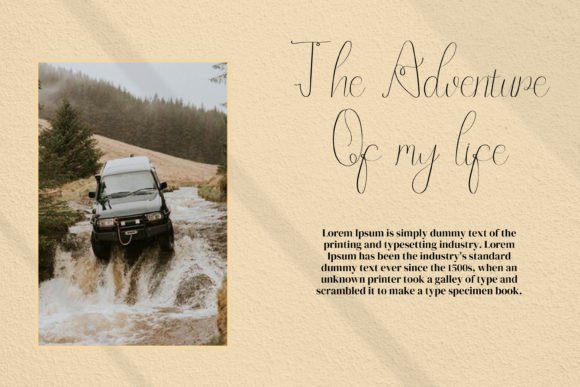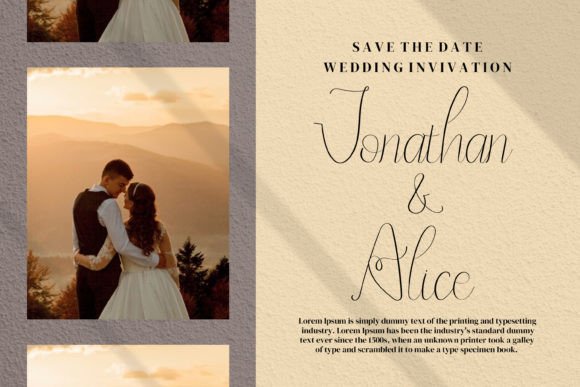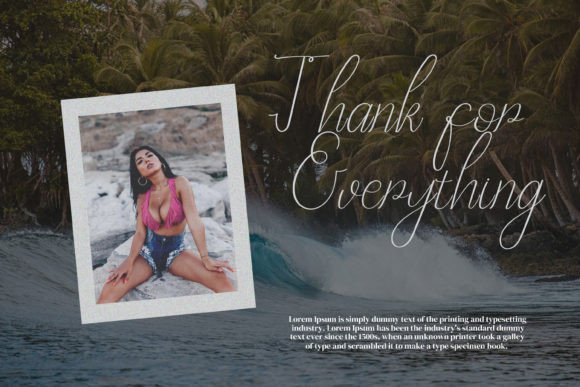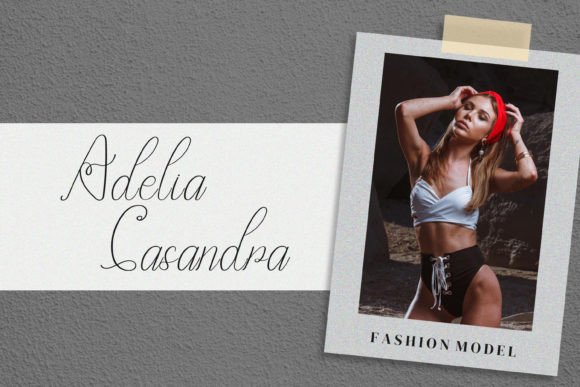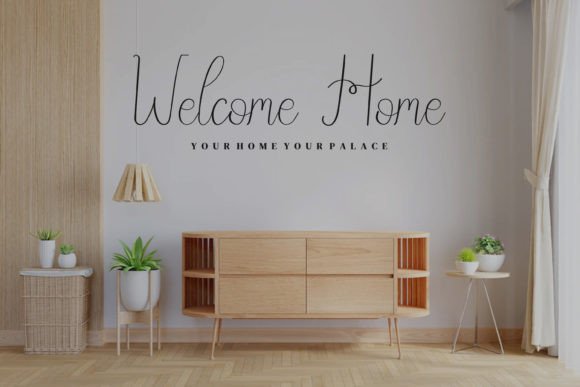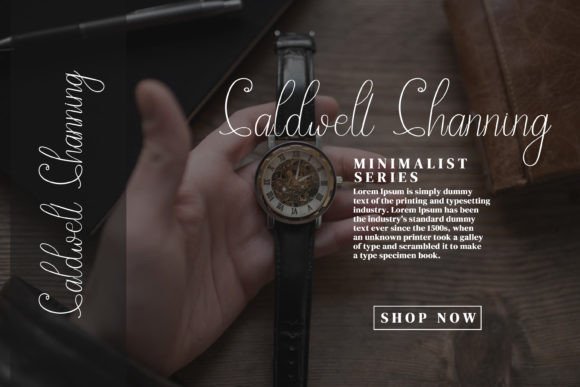
Dreeyand Font: Elevate Your Designs with Luxury and Sophistication
Are you a designer or crafter looking for a font that exudes luxury and sophistication? Look no further than Dreeyand Font. This stunning script font is perfect for a wide range of projects, from logos and branding to homeware designs, product packaging, and more. In this article, we’ll dive into the world of Dreeyand Font and explore its features, benefits, and uses.
What is Dreeyand Font?
Dreeyand Font is a beautifully crafted script font that is suitable for any project that requires a premium signature taste. Its elegant and refined design makes it perfect for luxury brands, high-end products, and special events. With its flowing lines and intricate details, Dreeyand Font adds a touch of sophistication and glamour to any design.
Features of Dreeyand Font
Dreeyand Font boasts a range of features that make it a versatile and desirable font for designers and crafters. Some of its key features include:
- Elegant Script Design: Dreeyand Font features a beautiful script design with flowing lines and intricate details.
- High-Quality Resolution: The font is designed to be clear and legible at high resolutions, making it perfect for large-scale prints and digital displays.
- Wide Range of Uses: Dreeyand Font is suitable for a wide range of projects, from logos and branding to homeware designs, product packaging, and more.
- Easy to Read: Despite its intricate design, Dreeyand Font is easy to read and understand, making it perfect for body text and headlines.
Benefits of Using Dreeyand Font
So, why should you choose Dreeyand Font for your next project? Here are just a few benefits of using this stunning script font:
- Adds Luxury and Sophistication: Dreeyand Font adds a touch of luxury and sophistication to any design, making it perfect for high-end brands and products.
- Versatile: The font is versatile and can be used for a wide range of projects, from logos and branding to homeware designs and product packaging.
- High-Quality: Dreeyand Font is designed to be high-quality and clear, making it perfect for large-scale prints and digital displays.
Uses of Dreeyand Font
Dreeyand Font is suitable for a wide range of projects, including:
- Logos and Branding: Use Dreeyand Font to create a luxurious and sophisticated logo for your brand.
- Homeware Designs: Add a touch of elegance to your homeware designs with Dreeyand Font.
- Product Packaging: Use Dreeyand Font to create luxurious and eye-catching product packaging.
- Mugs and Apparel: Add a touch of sophistication to your mugs, t-shirts, and other apparel with Dreeyand Font.
- Posters and Flyers: Use Dreeyand Font to create eye-catching posters and flyers for special events.
- Invitations and Greeting Cards: Add a touch of luxury to your invitations and greeting cards with Dreeyand Font.
Tips for Using Dreeyand Font
Here are a few tips for using Dreeyand Font effectively:
- Use it Sparingly: Use Dreeyand Font sparingly to add emphasis and create visual interest.
- Pair it with Other Fonts: Pair Dreeyand Font with other fonts to create a unique and visually appealing design.
- Pay Attention to Kerning: Pay attention to kerning to ensure that your text is clear and legible.
| Font Name | Dreeyand Font |
| Author | mahstudios |
Dreeyand Font is a stunning script font that is perfect for designers and crafters looking to add a touch of luxury and sophistication to their designs. With its elegant design, high-quality resolution, and wide range of uses, Dreeyand Font is a versatile and desirable font for any project. Whether you’re creating a logo, branding materials, or homeware designs, Dreeyand Font is sure to impress.